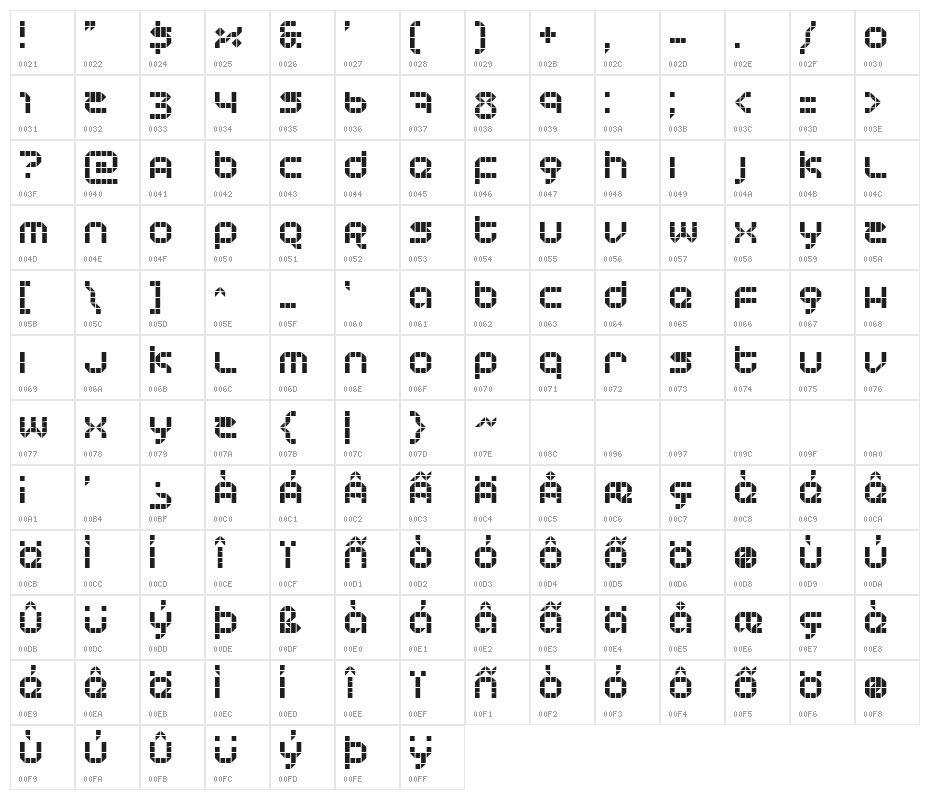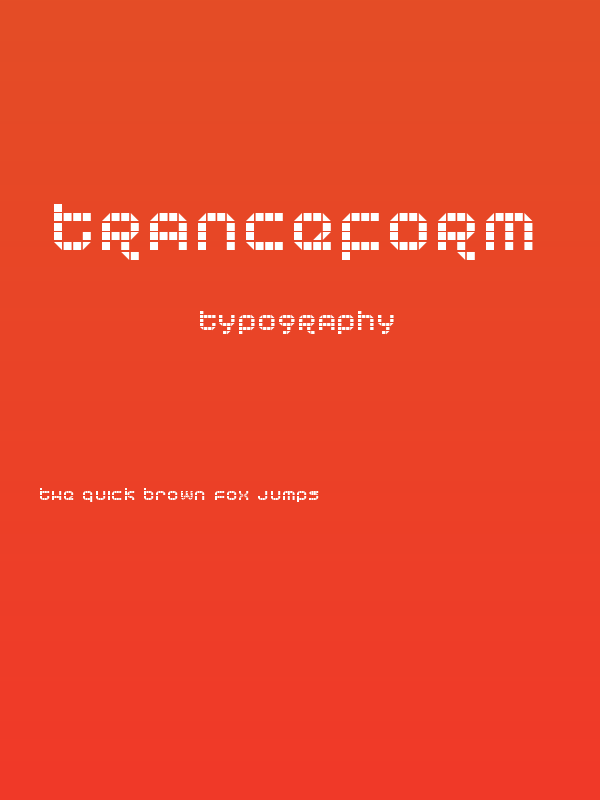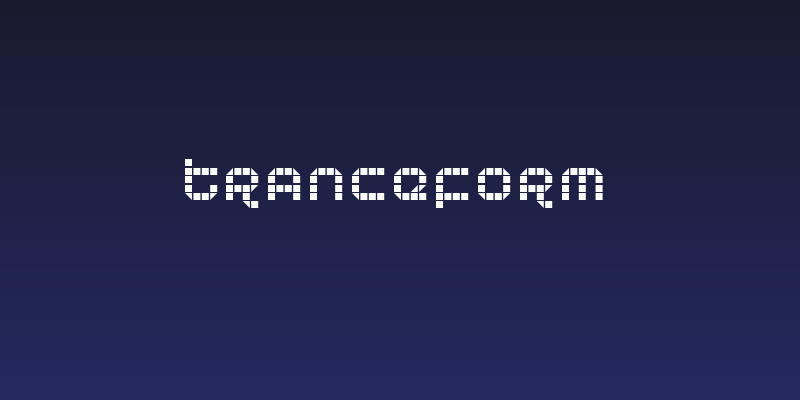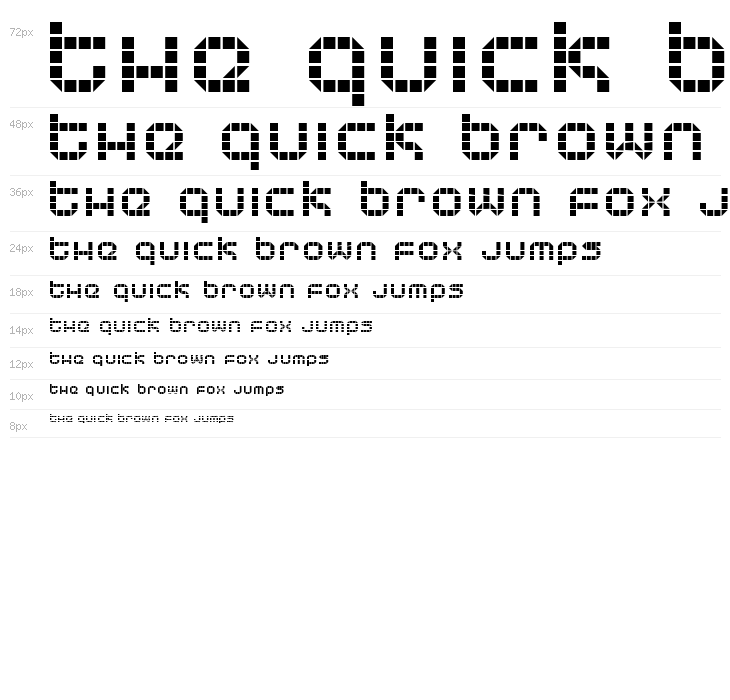
Tranceform Font
Tranceform Description
This font features a unique, geometric design composed of small square blocks forming each character. The style is highly modular, with each letter and number constructed from a grid-like pattern, giving it a digital, pixelated appearance. The characters are uniform in height and width, maintaining a consistent structure across the alphabet and numerals. This design creates a modern and futuristic aesthetic, reminiscent of digital displays or retro video game graphics. The font's distinct style makes it stand out, offering a bold visual impact while maintaining legibility. The special characters follow the same grid pattern, ensuring a cohesive look throughout the font set.
| Use Case | Logos, Headlines, Posters |
| Proposed Projects | Ideal for tech-related branding, video game design, digital art projects, and futuristic-themed posters. |